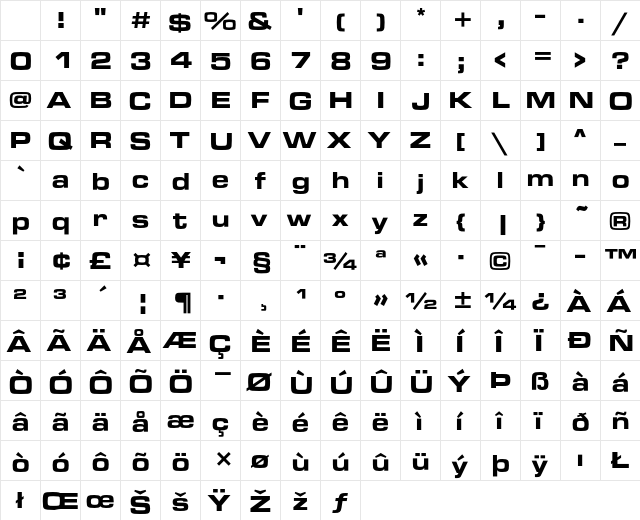
Microgramma D Bold Extended
Style: Bold Extended
Microgramma D Family
Complete Microgramma D Bold Extended glyph index. Displaying only characters natively supported by Microgramma D Bold Extended font.
Design Context for Microgramma D
Microgramma D is a composed and adaptable typeface that performs quietly and consistently across a wide range of design contexts. Its bold stroke weight gives it real presence on the page.